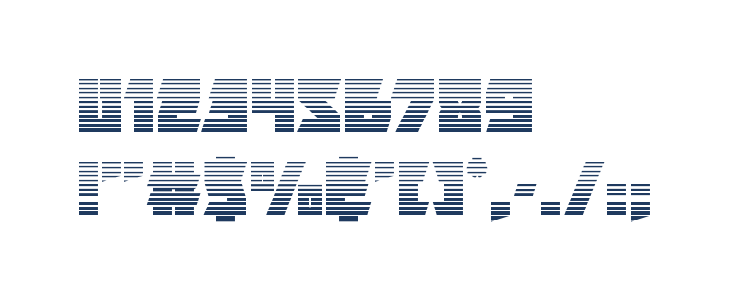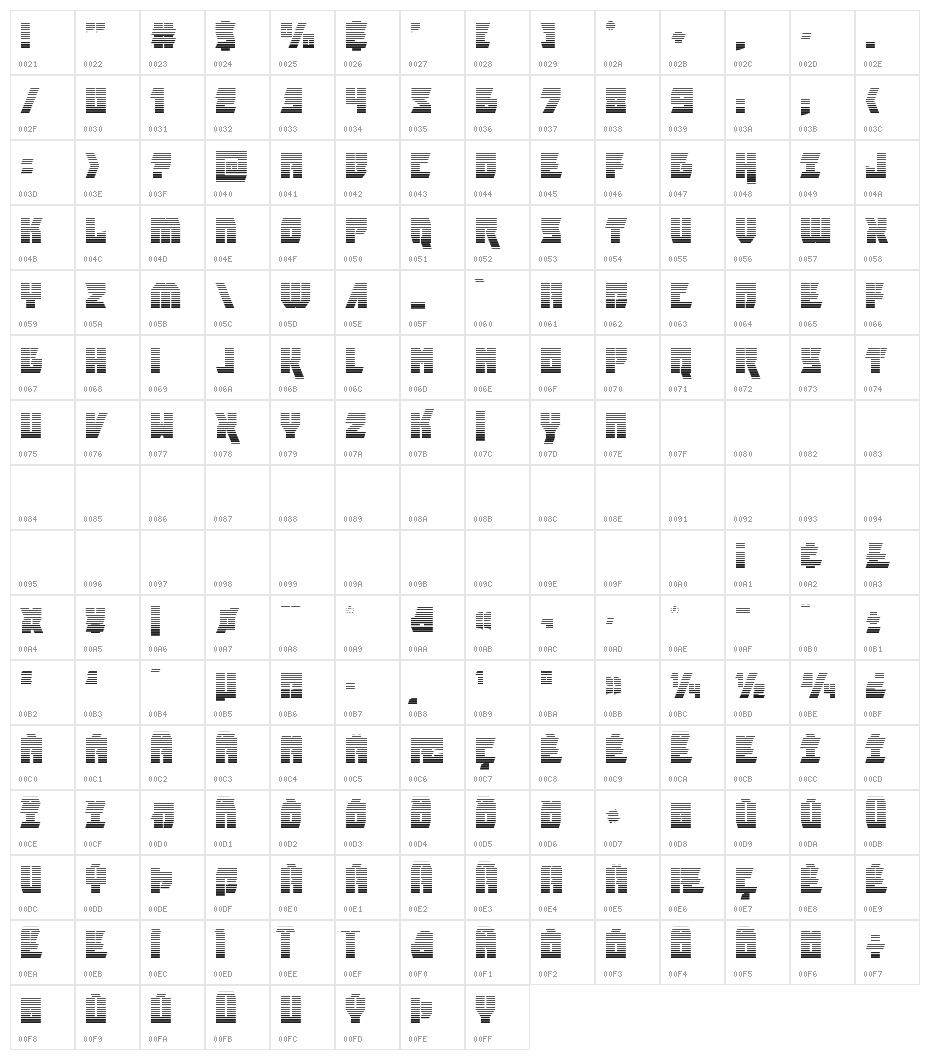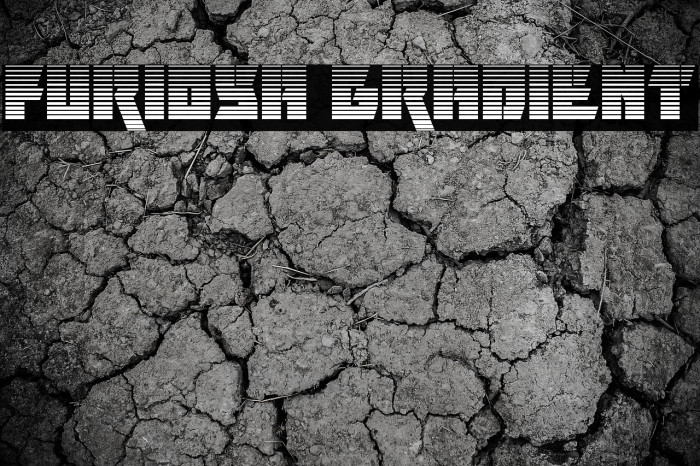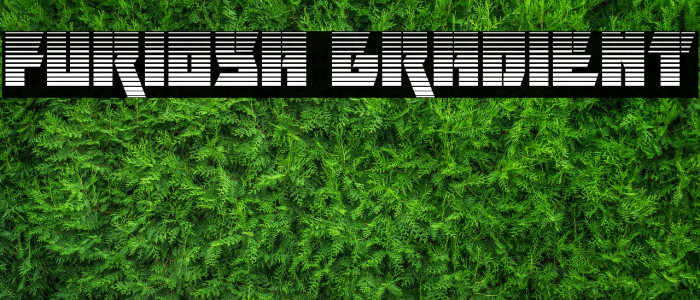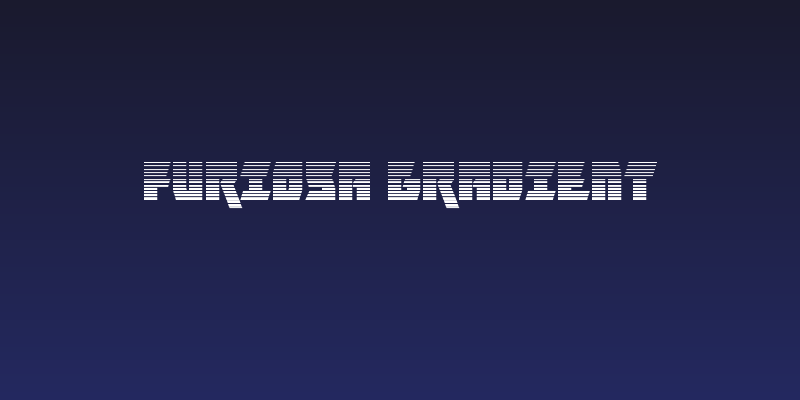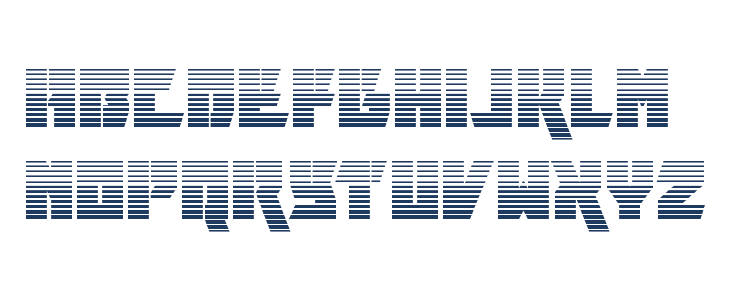
Furiosa Gradient Font
Furiosa Gradient Description
This font features a bold, futuristic design with a unique gradient effect created by horizontal lines. Each character is composed of multiple parallel lines, giving it a dynamic and energetic appearance. The uppercase and lowercase letters maintain a consistent style, with sharp angles and geometric shapes that enhance its modern aesthetic. The numbers and special characters follow the same design principles, ensuring a cohesive look across all elements. This font is ideal for projects that require a strong visual impact and a contemporary feel.
| Proposed Projects | Ideal for sci-fi themed designs, modern branding, video game titles, and futuristic posters. |